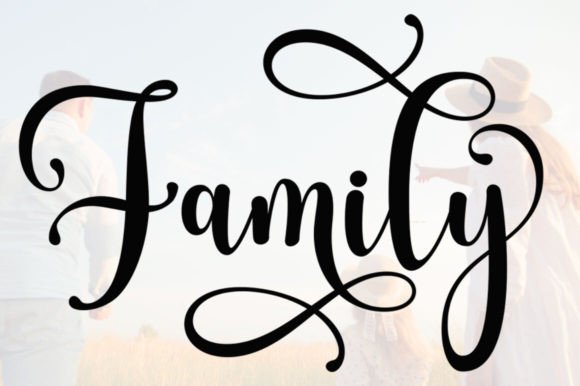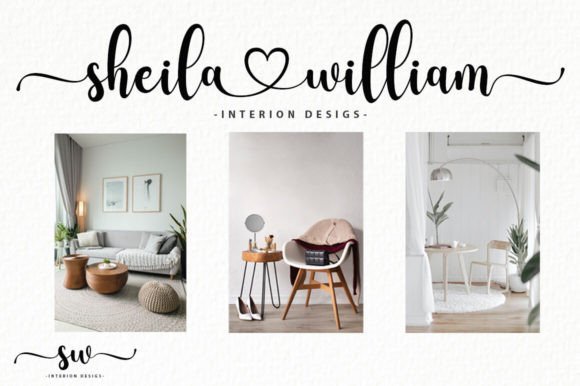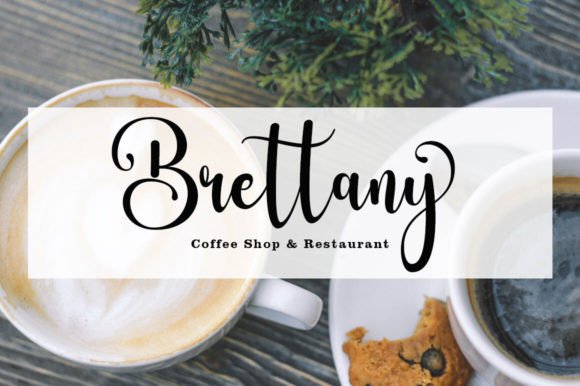
Baby Boho Font
Baby Boho script is a modern calligraphy design including Regular. This font is casual and beautiful with swashes. Can be used for various purposes such as logos, product packaging, wedding invitations, branding, headlines, signage, labels, signatures, book covers, posters, quotes, and much more.Baby Boho Script is encoded with PUA Unicode, which allows full access to all additional characters without having to design special software. Mac users can use Font Book, and Windows users can use Character Map to view and copy any additional characters to insert into their favorite text editor/application.